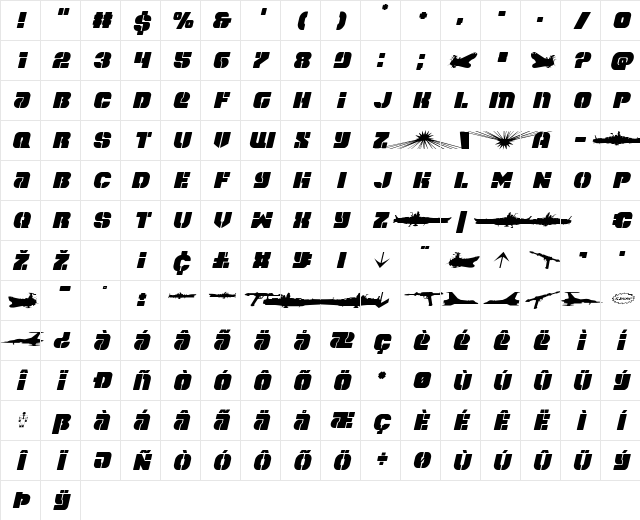
Space Cruiser Italic Italic
Design Context for Space Cruiser Italic
Space Cruiser Italic is a composed and adaptable typeface that performs quietly and consistently across a wide range of design contexts. The slanted form adds forward momentum and visual energy.
Pro Tip: Use Space Cruiser Italic for emphasis, pull quotes, and subheadings where its slanted energy can add rhythm to the layout.